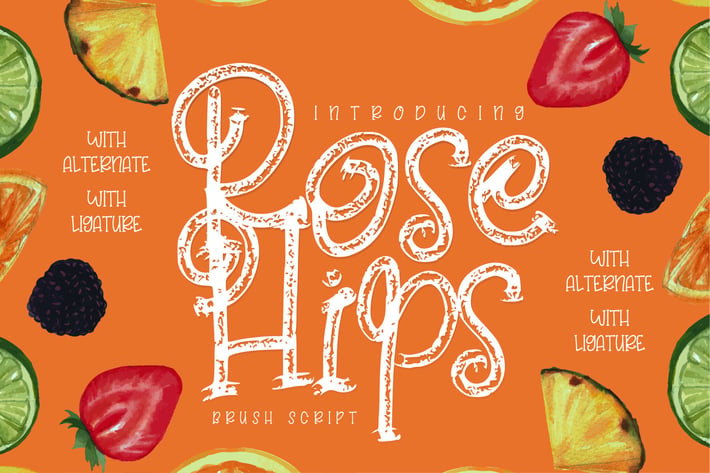
Rose Hips | Decorative Fruit Font
Rose Hips | Decorative Fruit Font with a calligraphy style, So beautiful on invitation like greeting cards, branding materials, business cards, quotes, posters, and more!